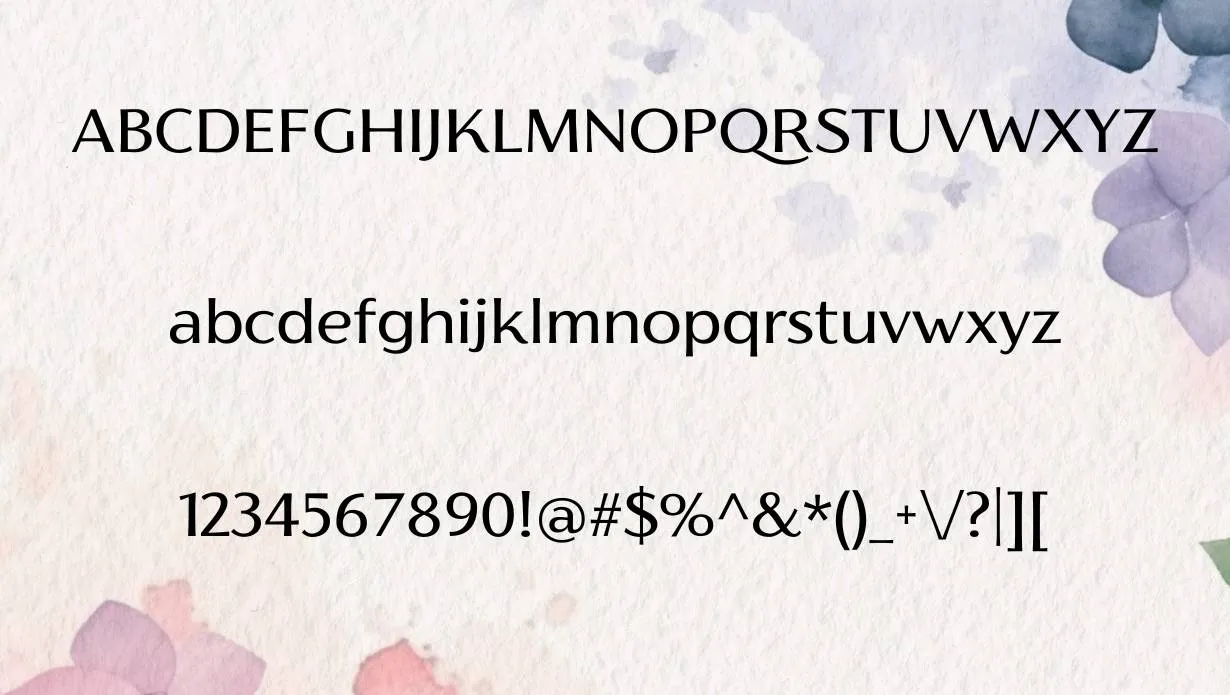
Florentia Font has a classic and elegant design, often chosen for formal documents, editorial design, and branding.
Its well-proportioned letterforms and traditional style convey a sense of sophistication and tradition, making it a preferred choice for high-end projects.
| Name | Florentia Font |
| Designer | Francesco Canovaro |